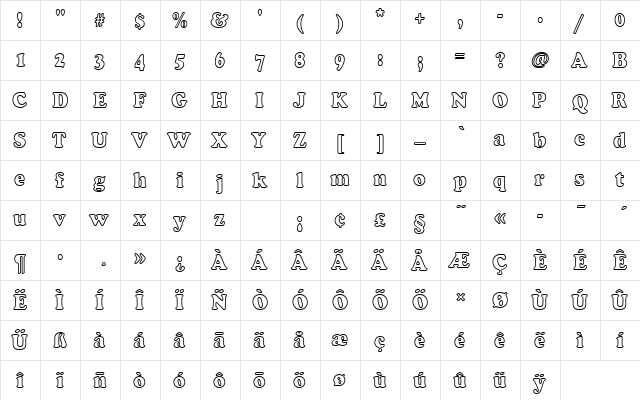
CooperBlaOutDConRo1 Regular
Design Context for CooperBlaOutDConRo1 Typeface
CooperBlaOutDConRo1 offers clean, dependable letterforms without strong stylistic allegiance, making it a practical choice for designers who need flexibility.